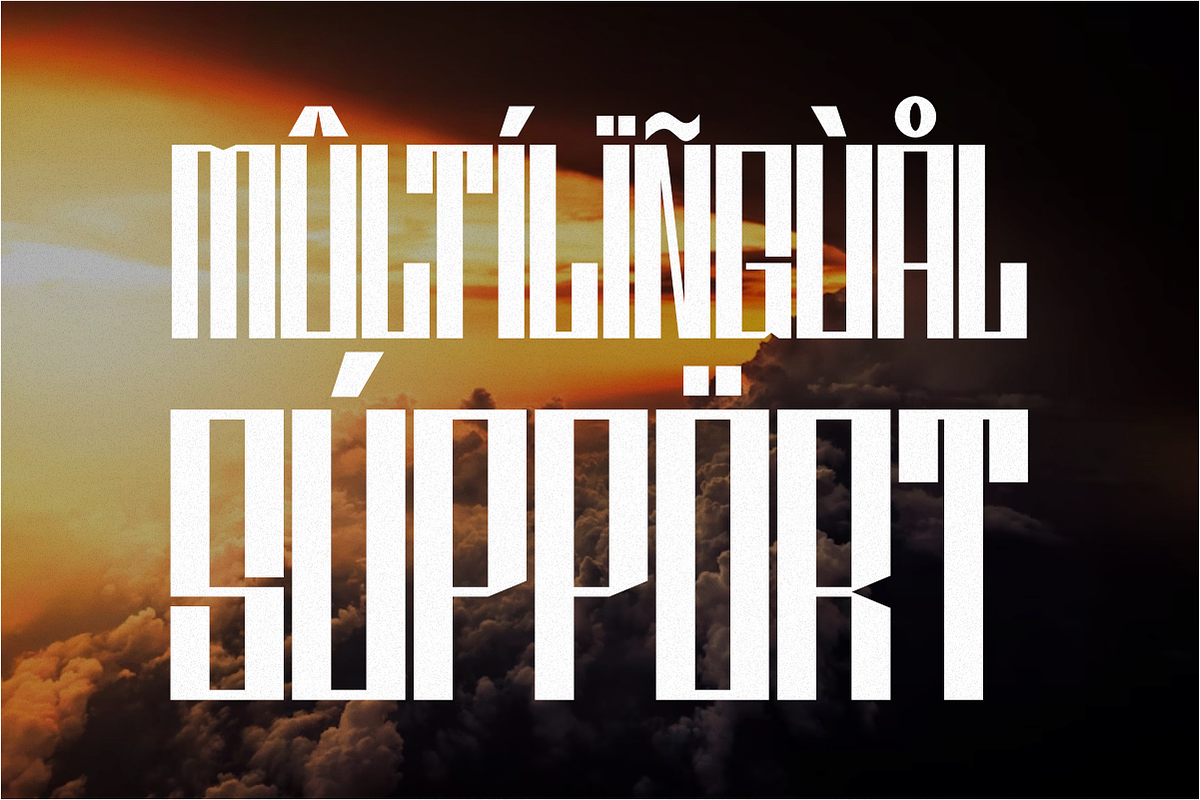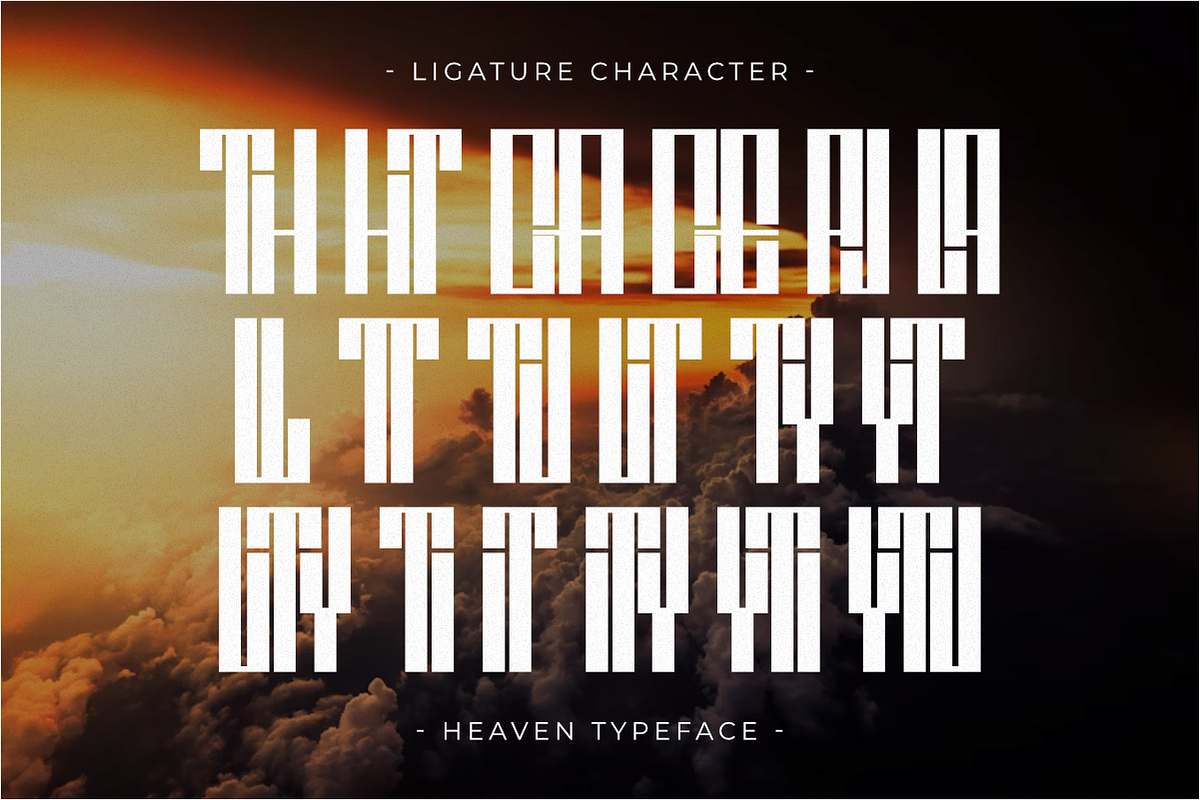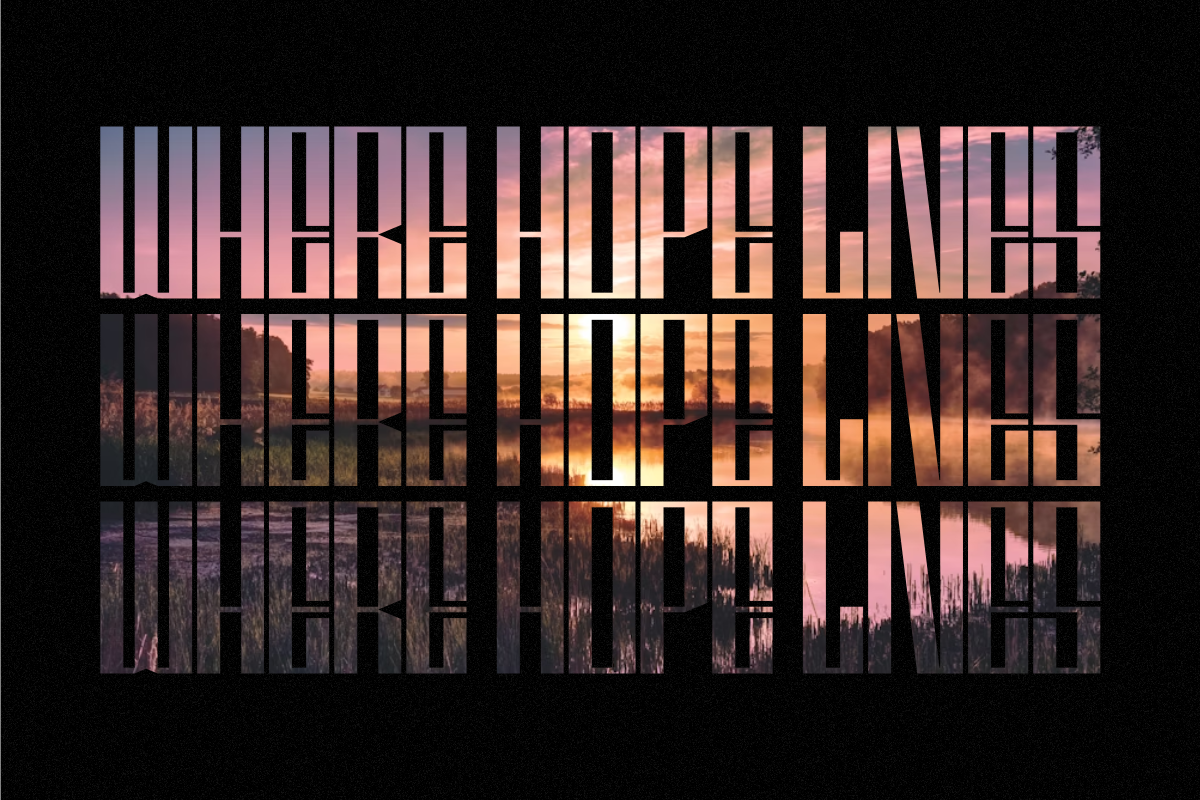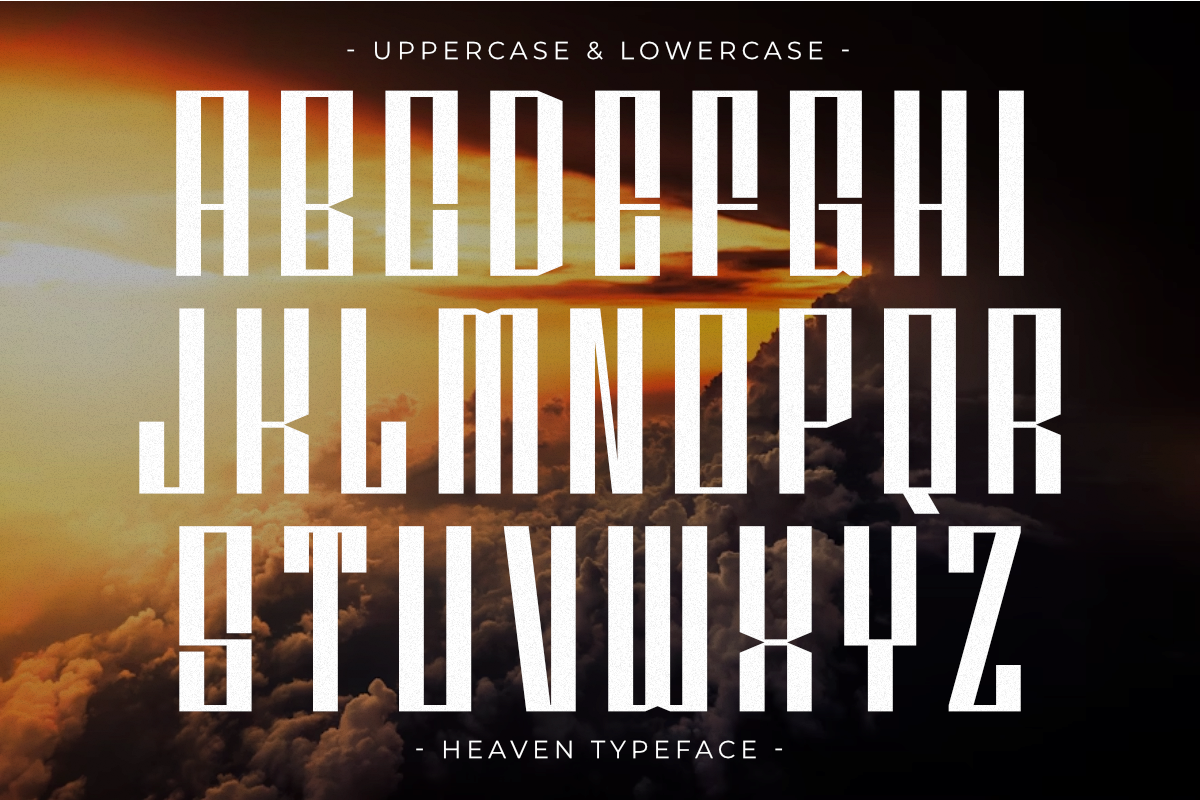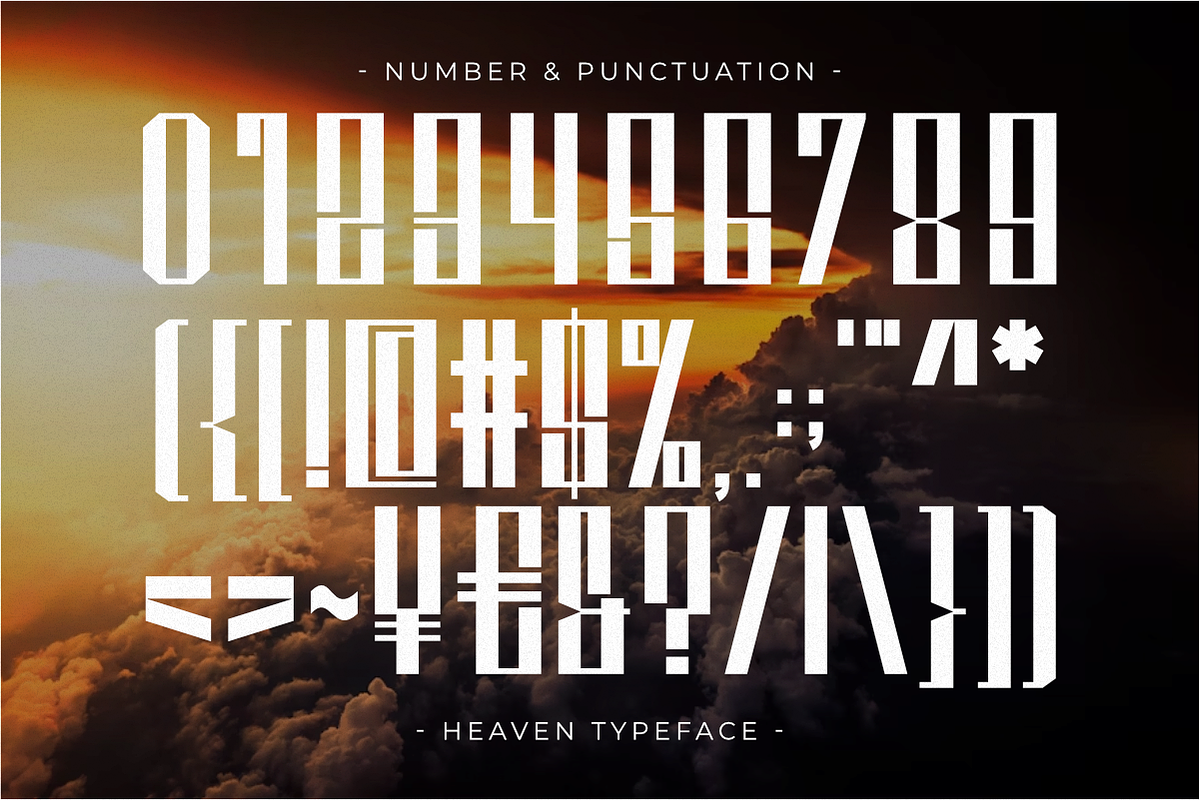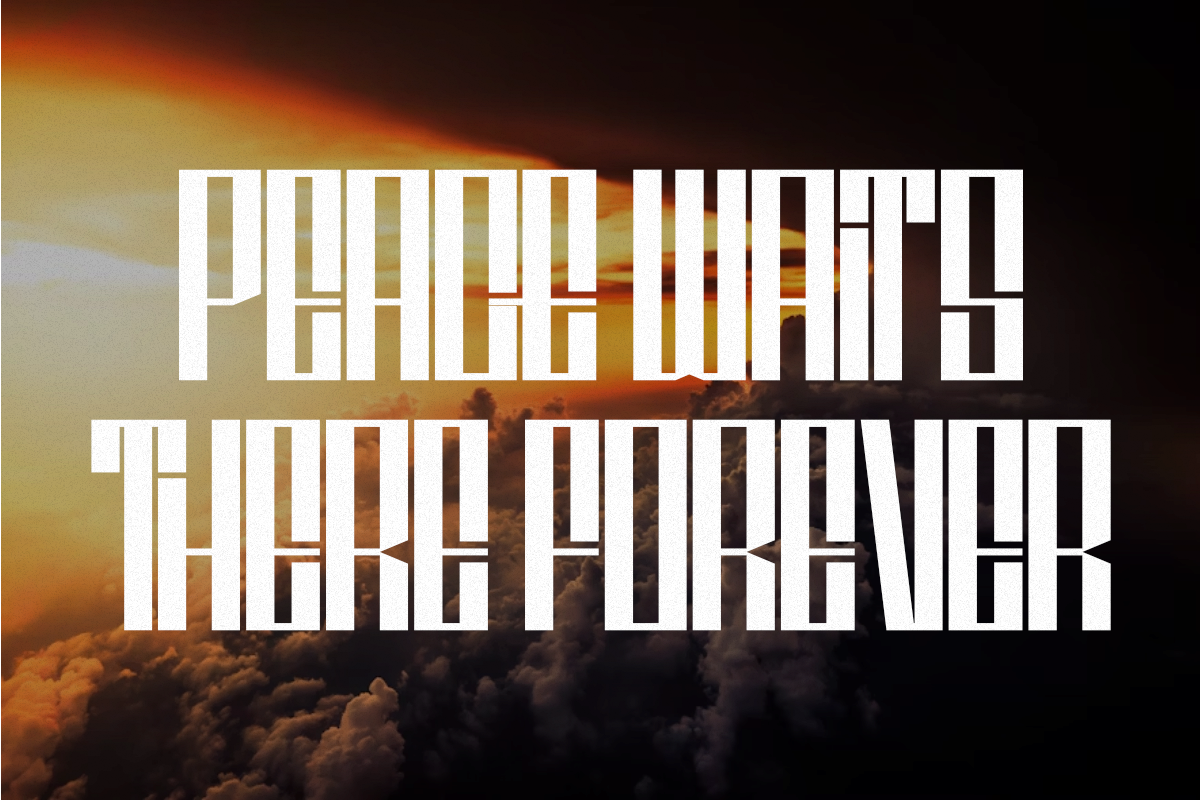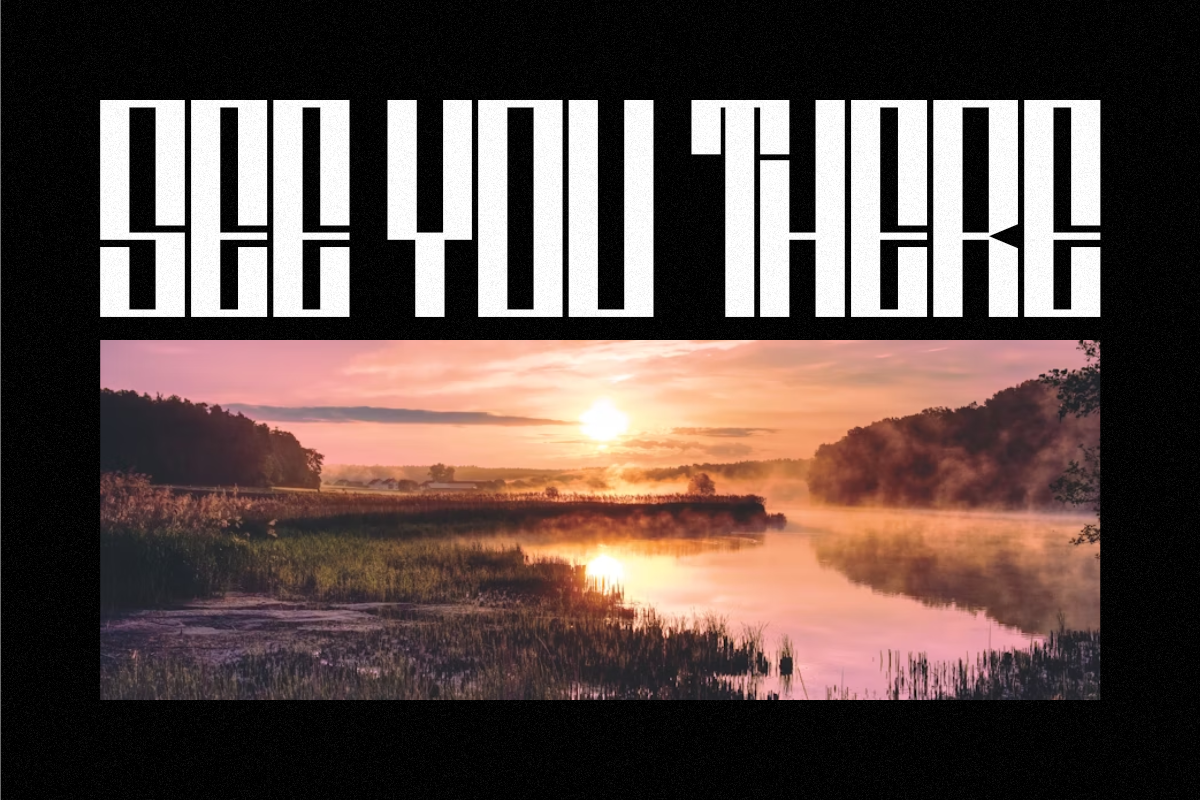
Heaven - Ultra Condensed Sans Serif
Heaven is a striking, assertive Ultra Condensed Sans Serif font defined by its extreme vertical reach and unique, angular, and clean geometric cuts. Designed for maximum visual drama, it's the perfect modern display typeface for high-end luxury branding, architectural visuals, futuristic posters, and bold, monumental headlines. This striking all-caps font includes subtle ligatures for a customized, elite aesthetic, ensuring a strong, professional, and instantly memorable visual identity for digital and print media.